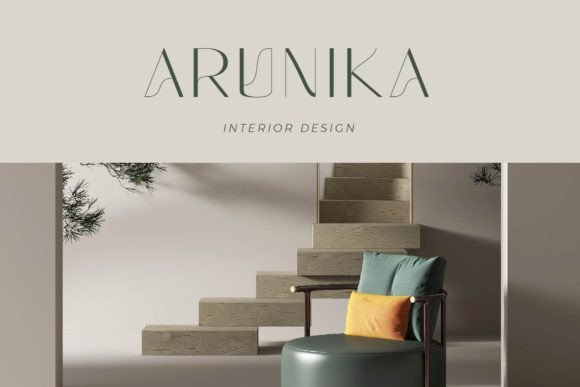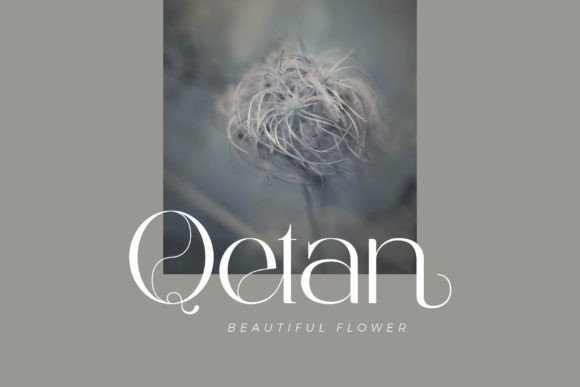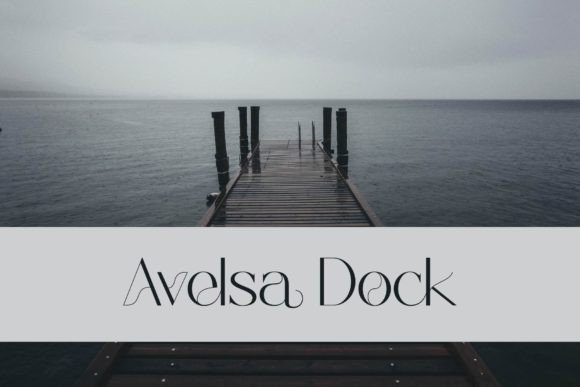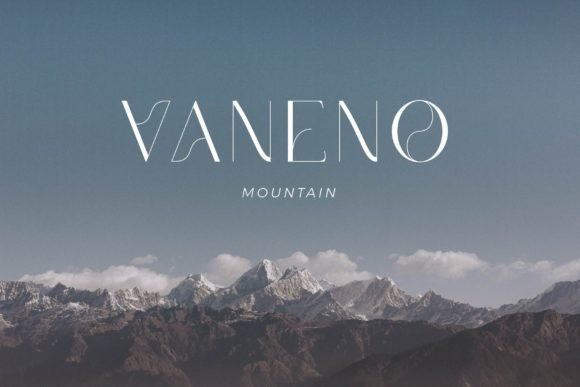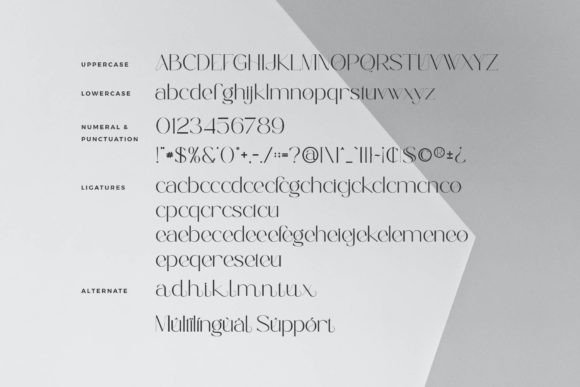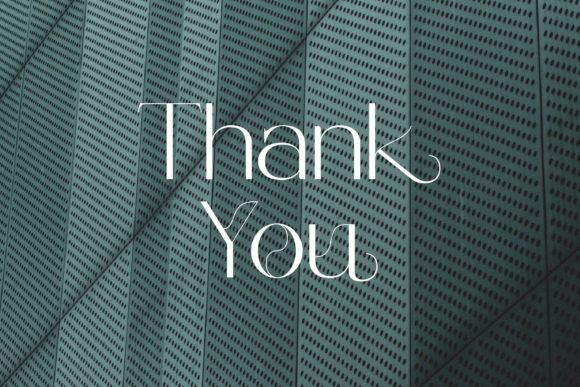
The Perfect Blend of Simplicity and Elegance: Unveiling the Bagelan Font
Imagine you’re sitting in a quiet café, surrounded by the gentle hum of creative energy. You’re sipping on a warm cup of coffee, and your mind starts to wander to the perfect font to elevate your next design project. The Bagelan Font, a stunning sans-serif typeface, suddenly pops into your head – and you know you’ve found the perfect match. Inspired by the minimalist logo, this elegant font is designed to bring a touch of sophistication to your work.
The Bagelan Font is a versatile tool for designers, perfect for crafting templates, brochures, videos, and more. Its accessibility in popular design software like Adobe Illustrator, Adobe Photoshop, and Corel Draw makes it a valuable asset for any creative professional. With PUA Encoded Characters, you can access its full range of characters without needing additional design software – making it a seamless addition to your workflow.
Bagelan Font Key Features
- Font Family: Bagelan is a unique and elegant font family designed for various applications, including advertising, packaging, and editorial design.
- Character Set: The font family includes a wide range of characters, including uppercase and lowercase letters, numbers, punctuation marks, and special characters.
- Unique Characteristics: Bagelan’s unique design features include a mix of modern and traditional elements, with a distinctive flair that sets it apart from other font families.
Designer Review: Bagelan Font
When I first stumbled upon the Bagelan Font, I was immediately drawn to its unique and quirky aesthetic. The font’s distinctive curves and lines ✨ give it a playful feel that’s perfect for creative projects and brands looking to stand out from the crowd. I love how versatile it is – it can work just as well for a children’s book as it can for a trendy clothing brand.
- Its unique and playful style ✨ makes it perfect for creative projects and brands looking to stand out.
- The font’s versatility ✨ makes it suitable for a wide range of applications.
- It’s a great choice for designers who want to add a touch of whimsy to their projects.
However, there are a few limitations to consider ⚠️. The font can be a bit difficult to read at smaller sizes, and some of the characters may not be as legible as they could be. Additionally, the font’s unique style may not be to everyone’s taste – it’s definitely a love-it-or-hate-it kind of font.
- The font can be difficult to read at smaller sizes ⚠️.
- Some characters may not be as legible as they could be ⚠️.
- The font’s unique style may not appeal to everyone ⚠️.
Overall, I think the Bagelan Font is a great choice for designers who are looking for something a little different. While it may have some limitations, its unique style and versatility make it a great addition to any design project.
Tip: Use the Bagelan Font for headings to add a touch of elegance to your designs. You can also pair it with other fonts for a unique and creative look.
Tip: Use the Bagelan Font for titles or captions to add a touch of sophistication to your designs. You can also use it for hand-drawn or calligraphic effects.
Tip: Use the Bagelan Font for headings or titles to add a touch of professionalism to your presentations or documents.
The Bagelan Font is ideal for:
Calligraphy and hand-lettering
Typography-based art and designs